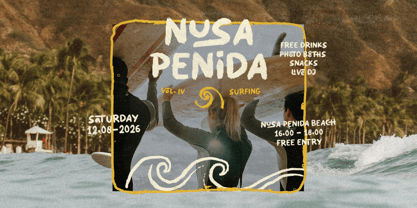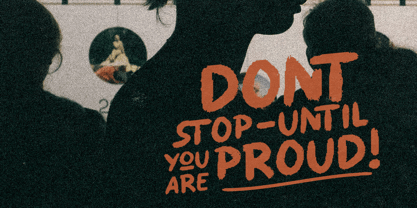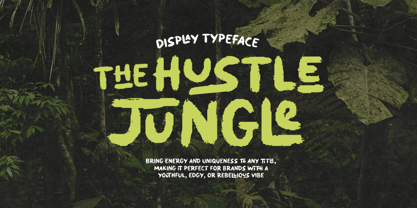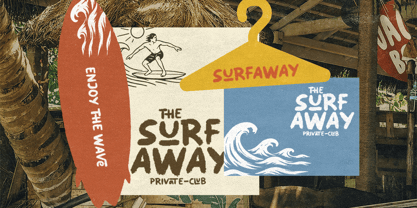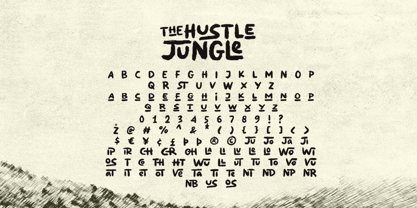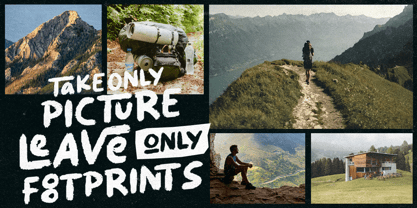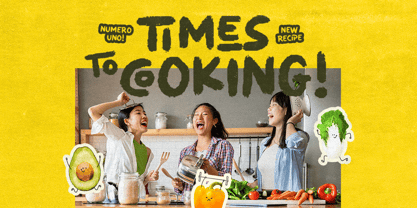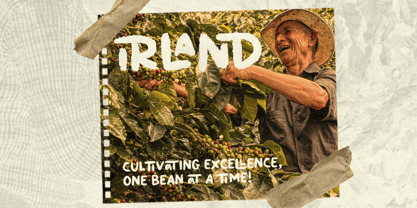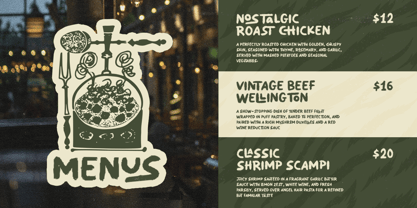
Hustle Jungle
von Bale Type
Die Schriftfamilie Hustle Jungle wurde von Dzikrul Aulia entworfen und von Bale Type veröffentlicht. Hustle Jungle enthält 1 Stile. Mehr über diese Familie
Jungle Hustle is an adventurous display font with rough, dirty edges that bring a bold and organic feel to your designs. It comes with a rich set of ligatures that help make your projects look more dynamic and visually appealing. Featuring a unique lowercase underline style, you can even combine both underline and regular characters within the same word to create standout typography. Jungle Hustle also supports multiple languages, making it a versatile choice for a wide range of creative projects.
Designer: Dzikrul Aulia
Foundry: Bale Type